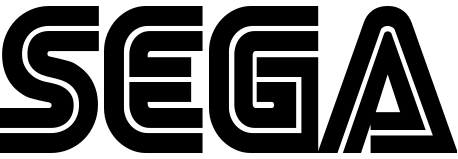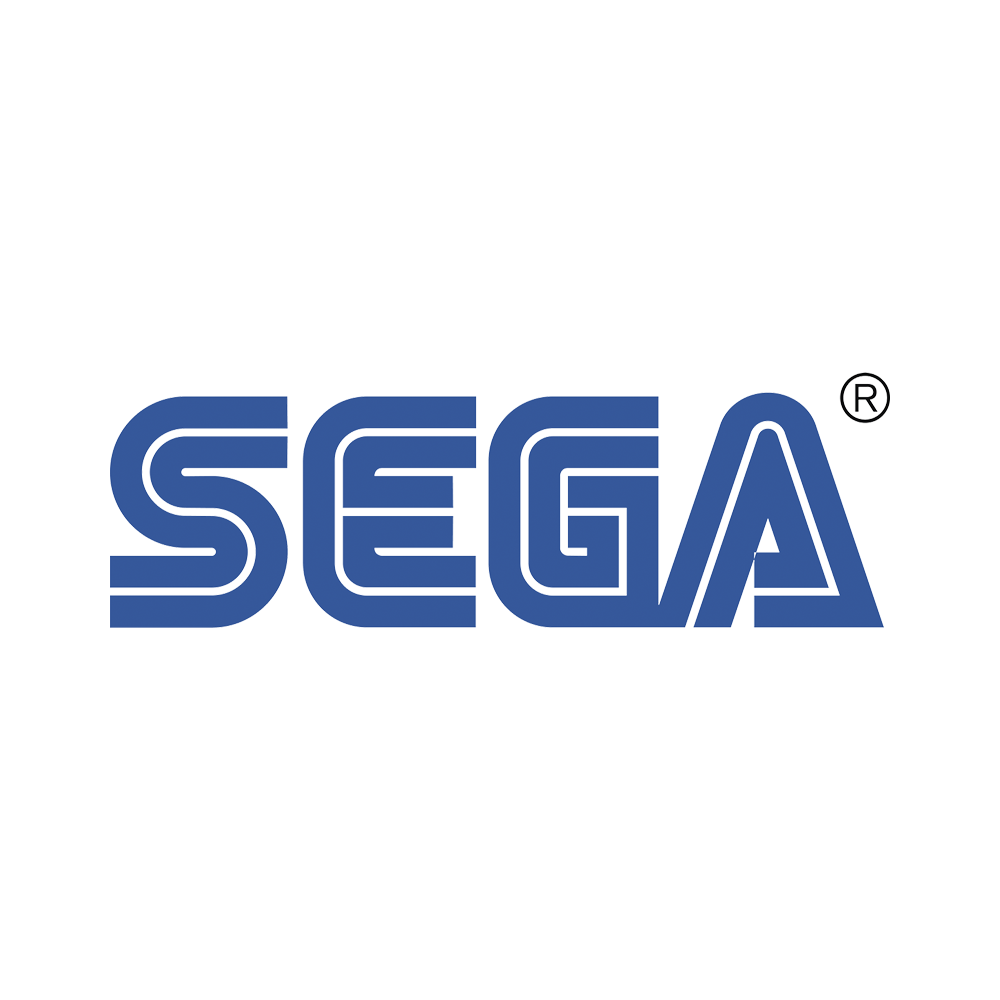
Sega Font
Company & ConsolesSega is a Japanese video game company known for popular franchises such as Sonic the Hedgehog and Phantasy Star. The company also produced consoles such as the Sega Genesis and Dreamcast.
A free font named Sega closely resembles the SEGA font and is only available in uppercase letters. The font is free for personal use.